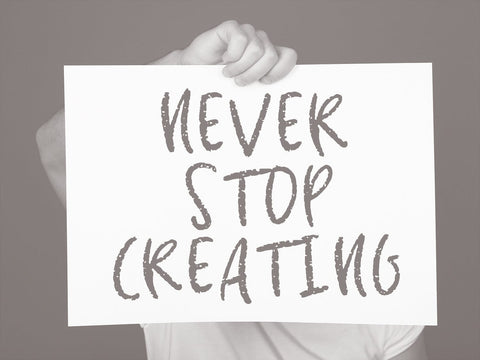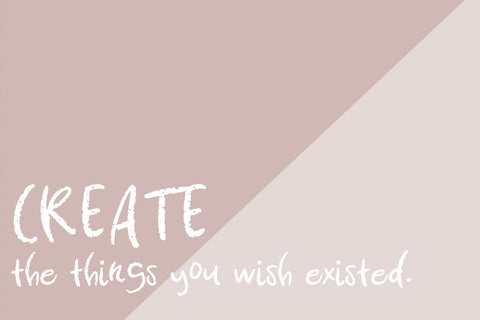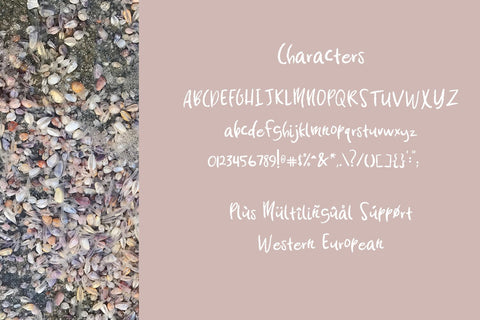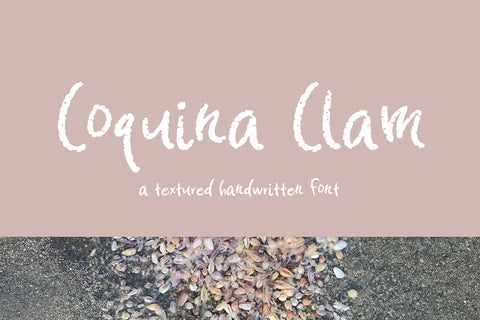
Coquina Clam Hand-lettered Font
The Coquina Clam font is a cute handwritten font, perfect for a variety of projects. This font would work well presented as chalky lettering.
Includes Western European language support.